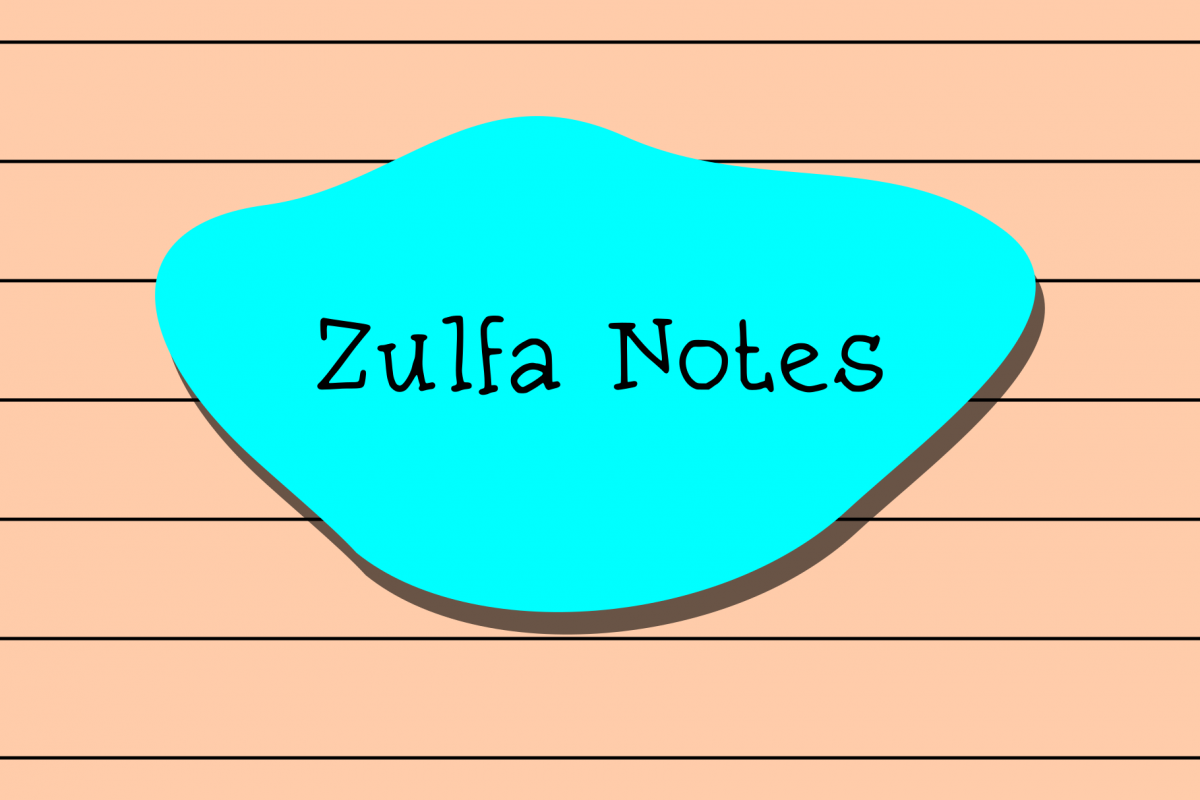
Zulfa Notes
ZulfaNotes-Regular
Introducing my new font Zulfa Notes, which imitates quick handwriting. Perfect to demonstrate any notes and reminders. Includes upper and lowercase standard characters, punctuation, numerals and multilingual support.